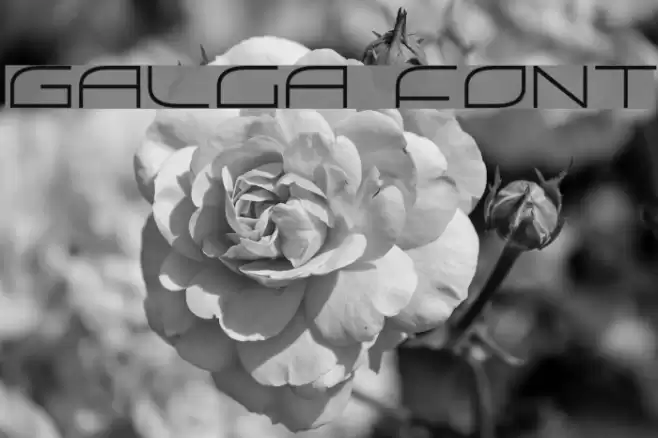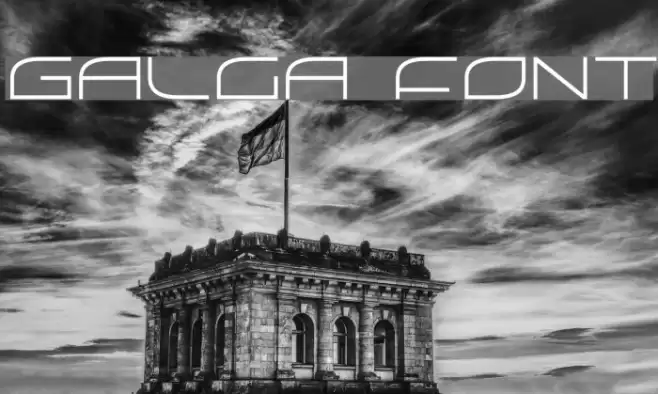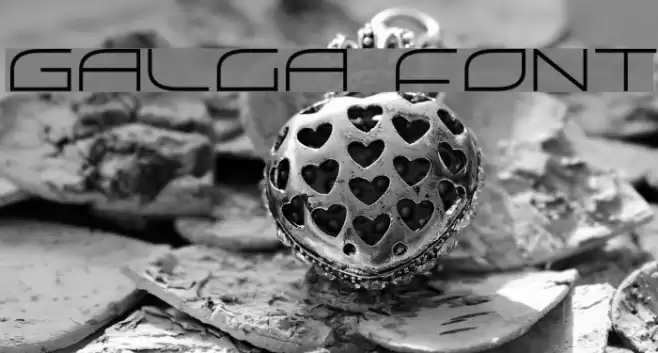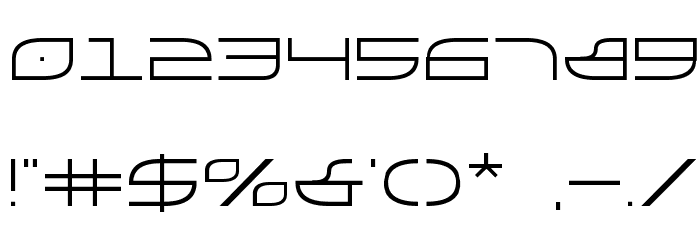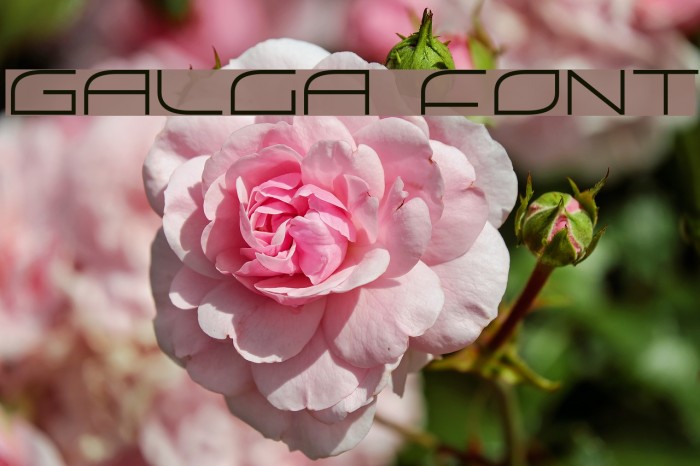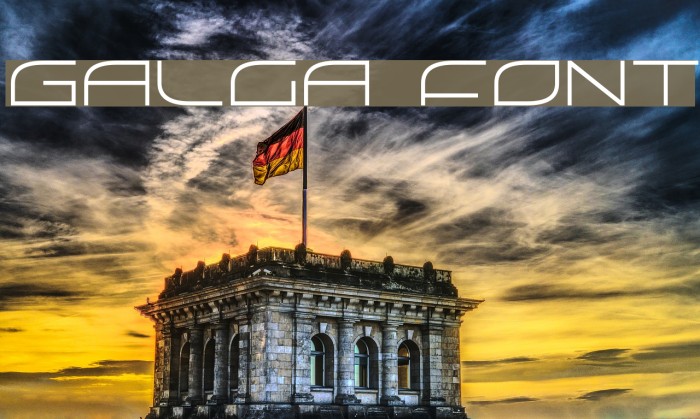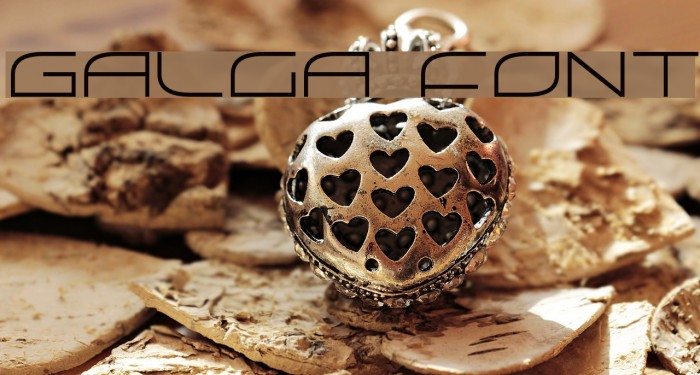
Galga Font
Galga Description
This font features a sleek, futuristic design with geometric elements and clean lines. The characters are composed of straight lines and curves, creating a modern and minimalistic appearance. The uppercase and lowercase letters maintain a consistent style, with a focus on symmetry and balance. The numerals and special characters are designed to complement the overall aesthetic, making the font suitable for a variety of applications. Its unique style is both eye-catching and versatile, ideal for projects that require a contemporary and innovative look.
A sleek, futuristic font with geometric elements and clean lines from Sci-fi fonts.
- Proposed Projects: Ideal for tech branding, modern posters, sci-fi themed designs, and innovative product packaging.
- Overall Style: Futuristic